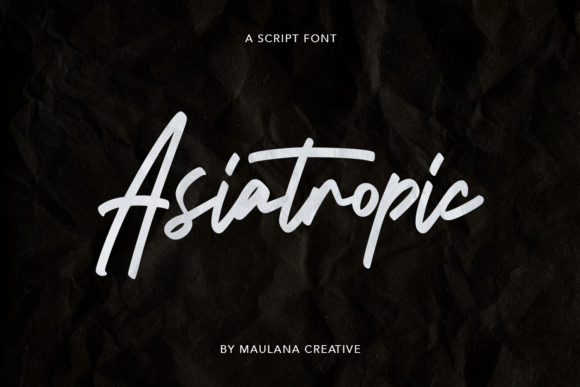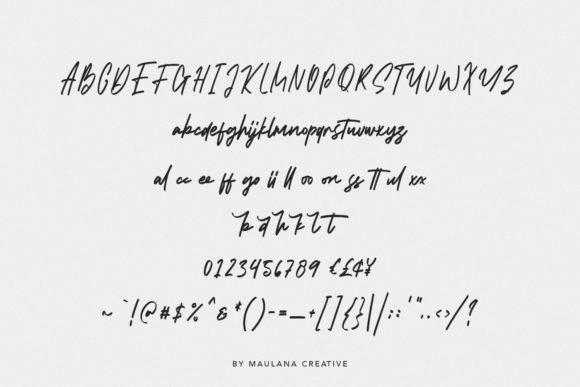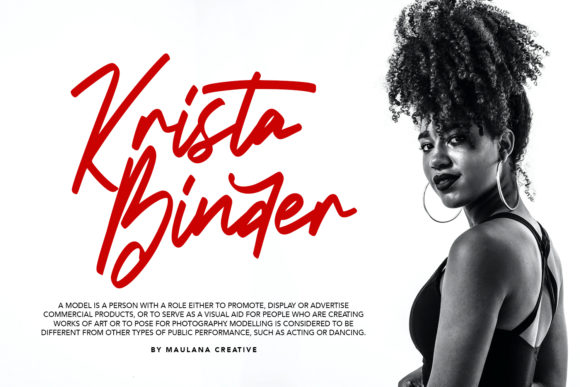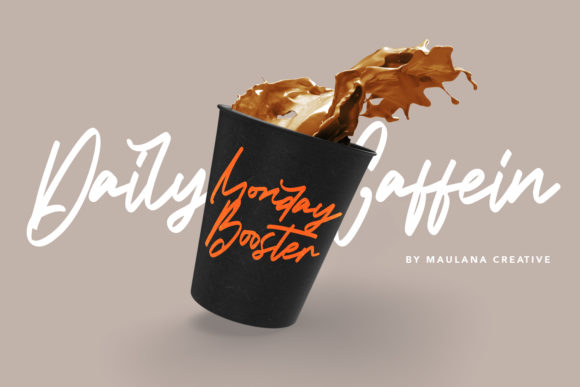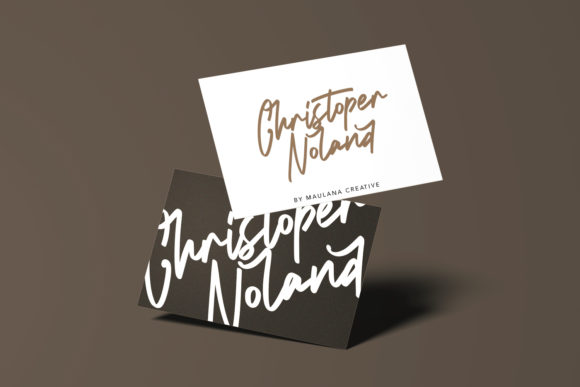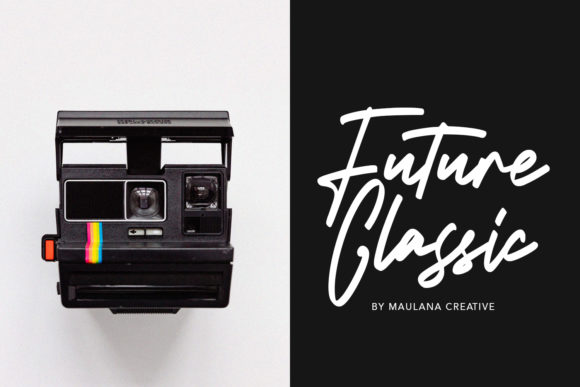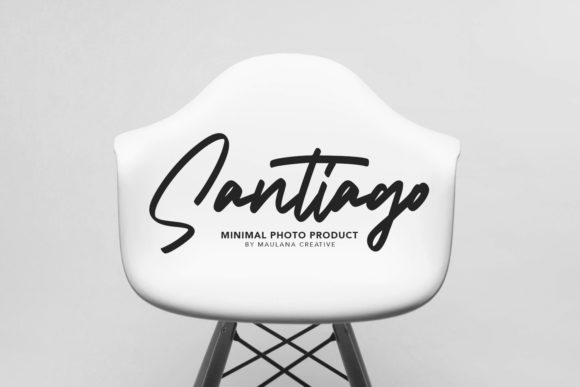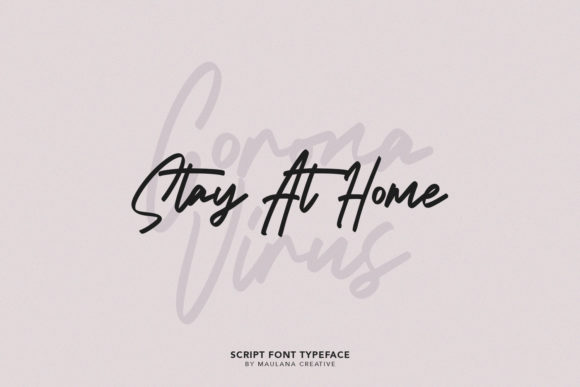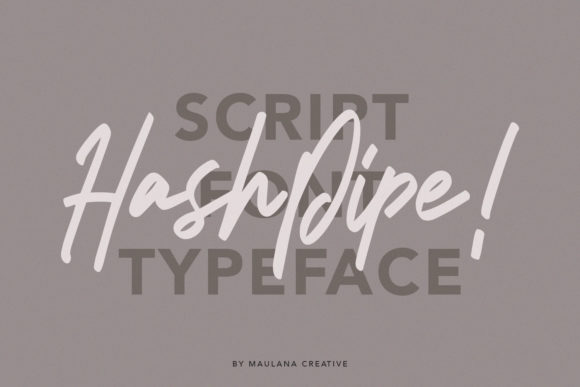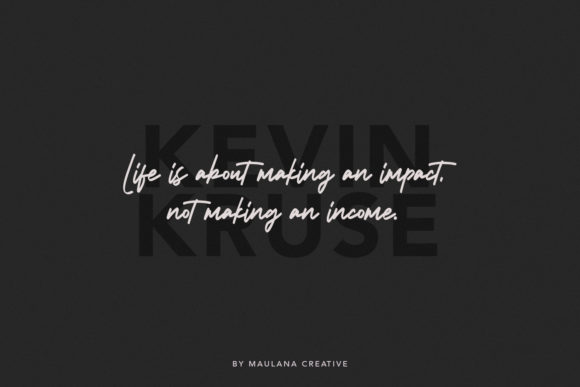
Asiatropic Font
About Asiatropic Font
Asiatropic is a gorgeous handwritten font, created with a wonderful brush pen. Its flowing style makes it incredibly versatile. Use this font to add that unique touch to any design idea you can think of!